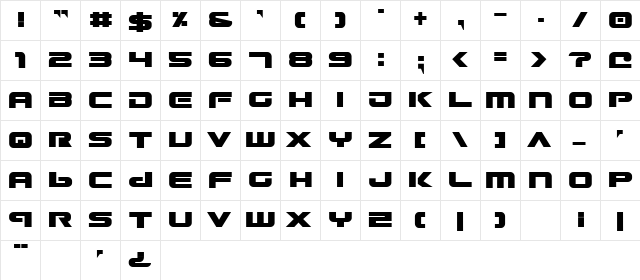
Gunship Bold Bold
Design Context for Gunship Bold Typeface
Gunship Bold is a composed and adaptable typeface that performs quietly and consistently across a wide range of design contexts. The heavy weight commands attention and anchors typographic hierarchies.
Pro Tip: Pair Gunship Bold with a font of contrasting weight or personality to build a more expressive typographic hierarchy.